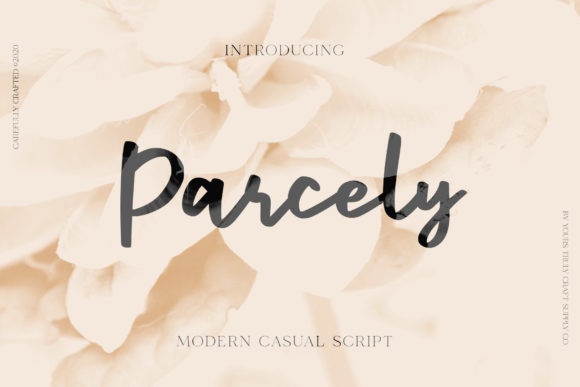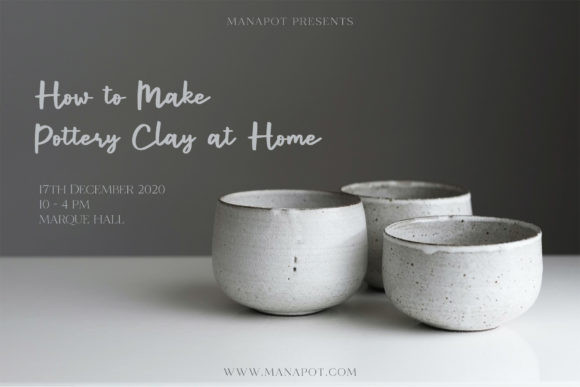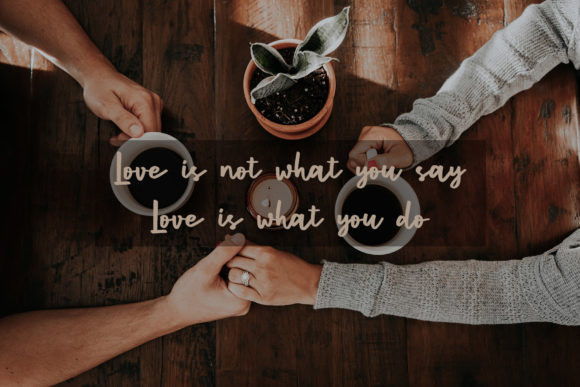
Parcely Font
Parcely is a lovely and casual handwritten font. It looks stunning on wedding invitations, thank you cards, quotes, greeting cards, logos, business cards and every other design which needs a handwritten touch. It features a varying baseline, smooth lines, gorgeous glyphs and stunning alternates.